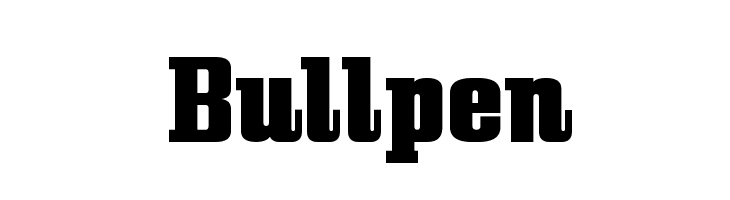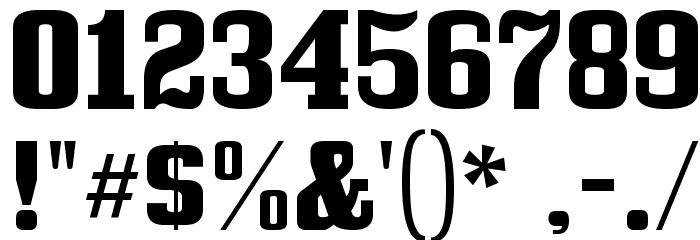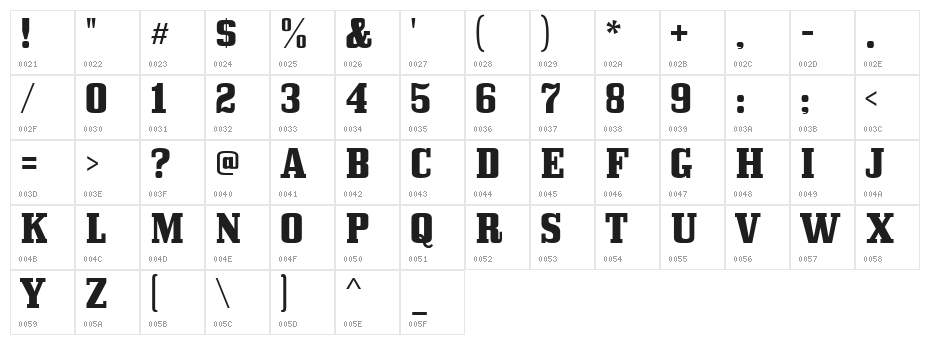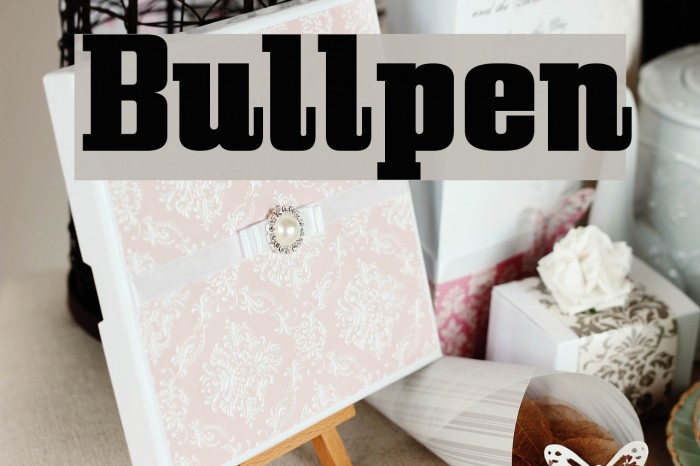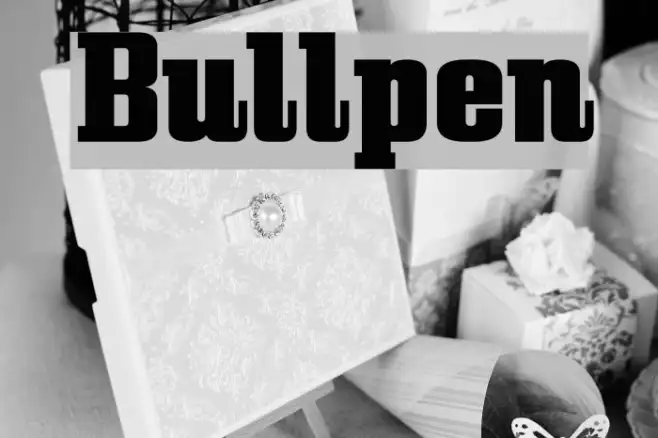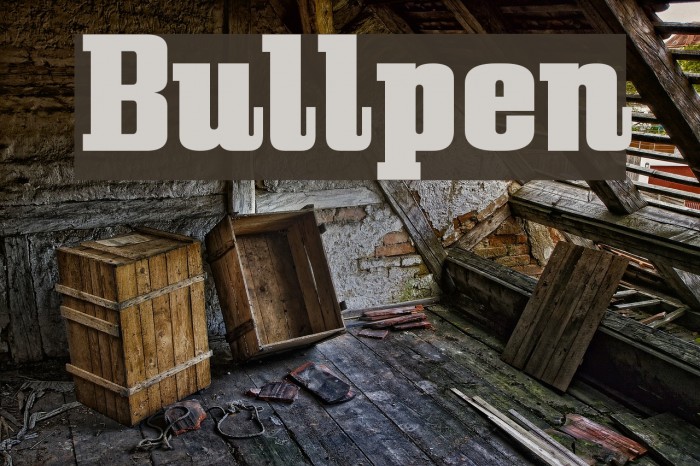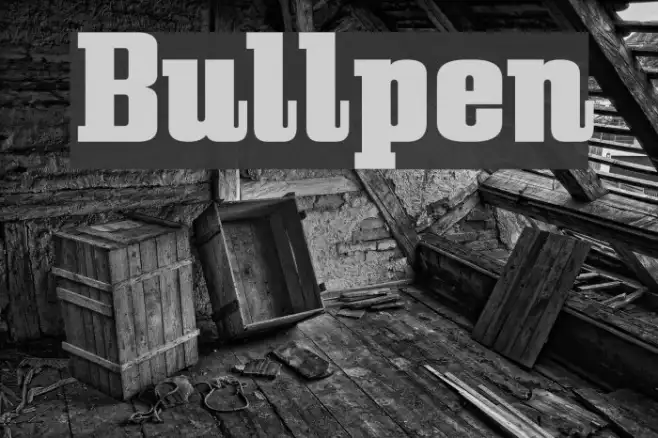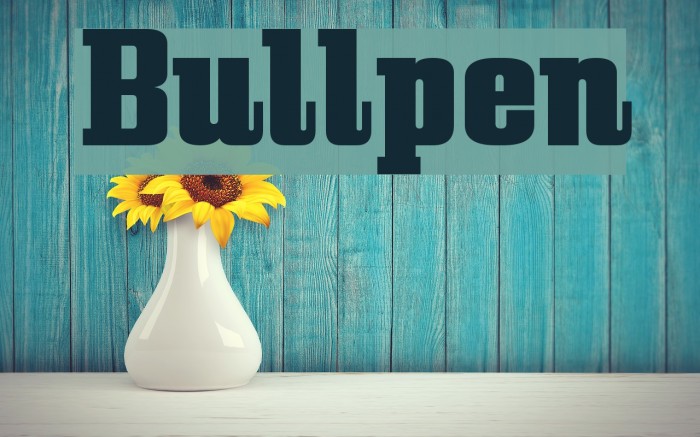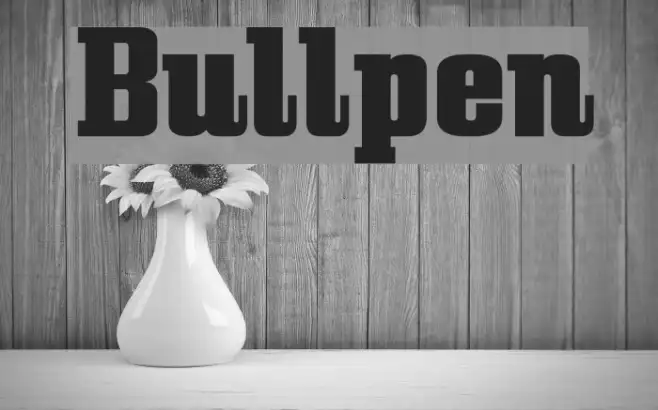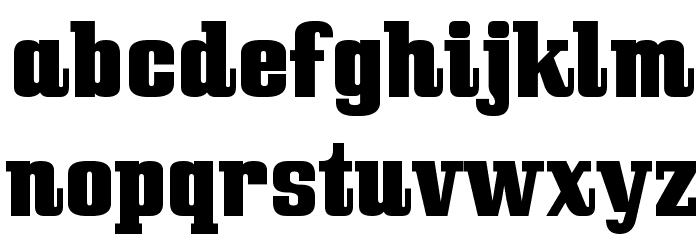
Bullpen Font
Bullpen Description
This font features a bold and robust slab serif style, characterized by thick, block-like serifs and a strong presence. The uppercase letters are uniform in height, with a commanding and authoritative appearance, while the lowercase letters maintain a consistent weight and structure, enhancing readability. The numerals are equally bold, ensuring they stand out prominently. Special characters are designed with the same boldness, providing a cohesive look across all glyphs. This font's design is ideal for making a strong visual impact, with its high contrast and sturdy form.
| Proposed Projects | Ideal for headlines, posters, branding, and any design requiring a bold statement. |